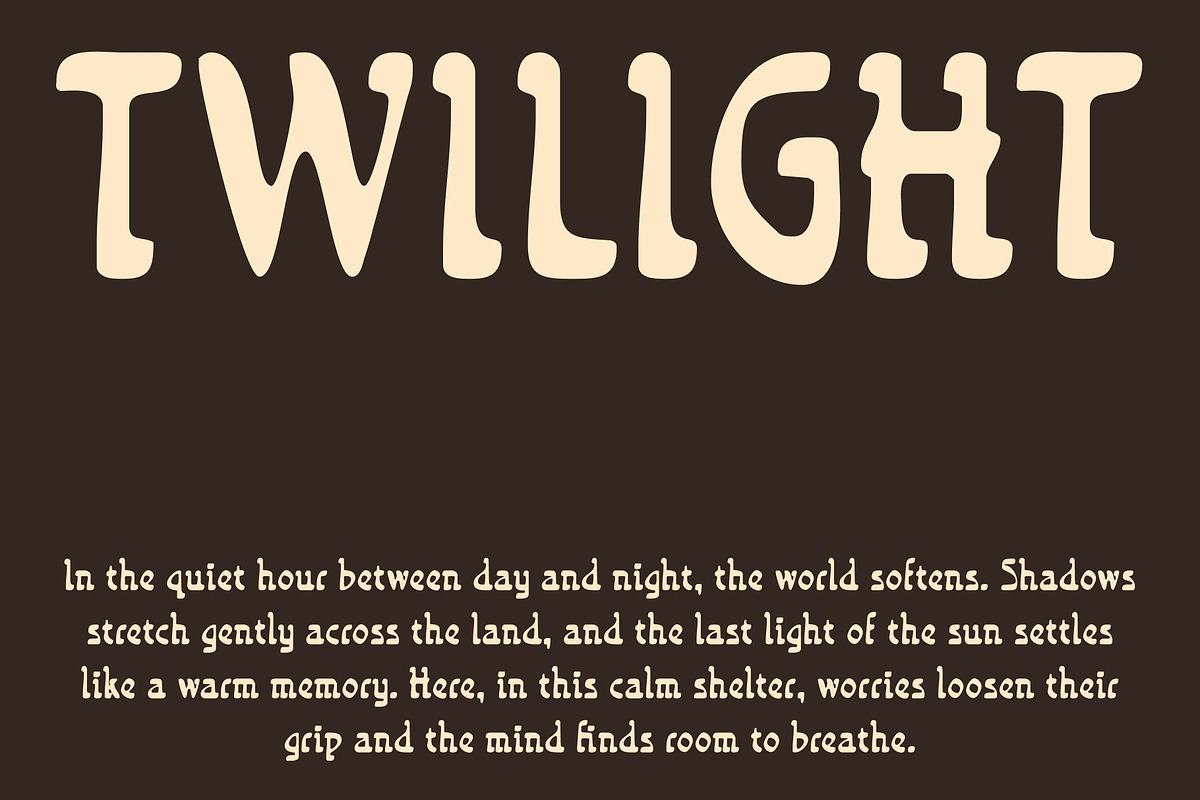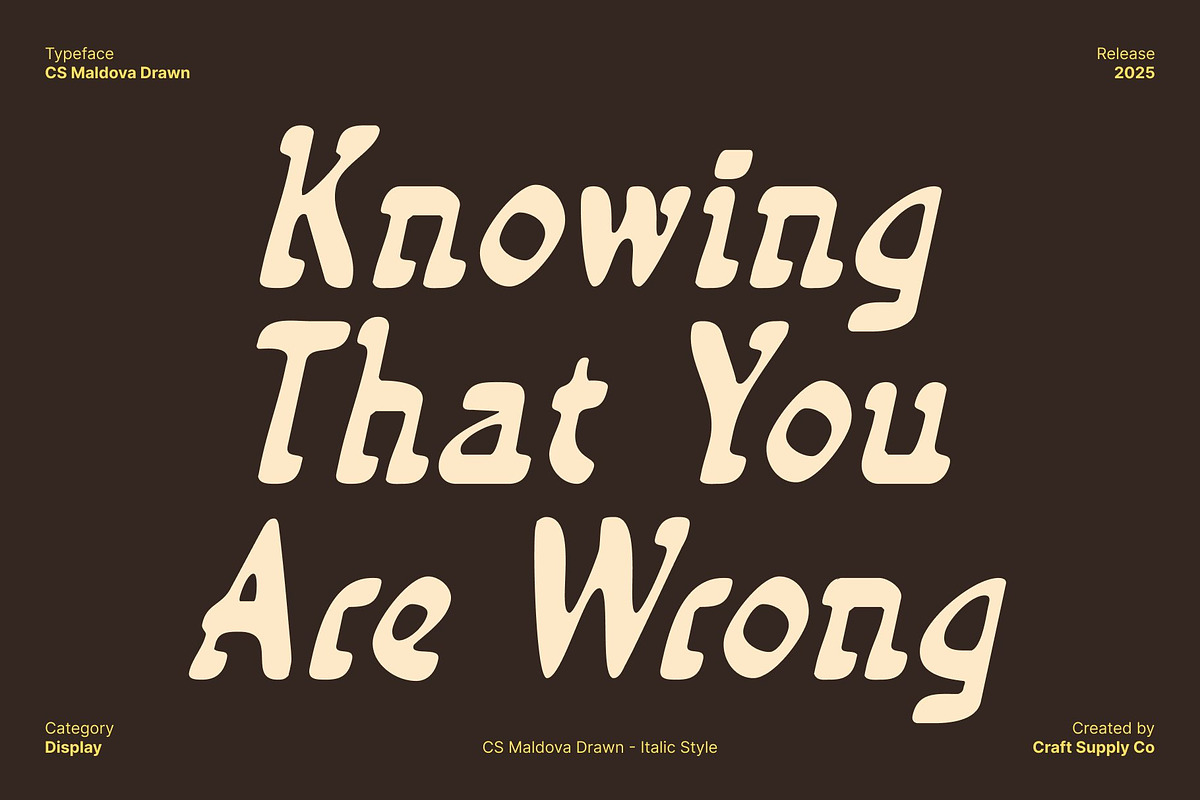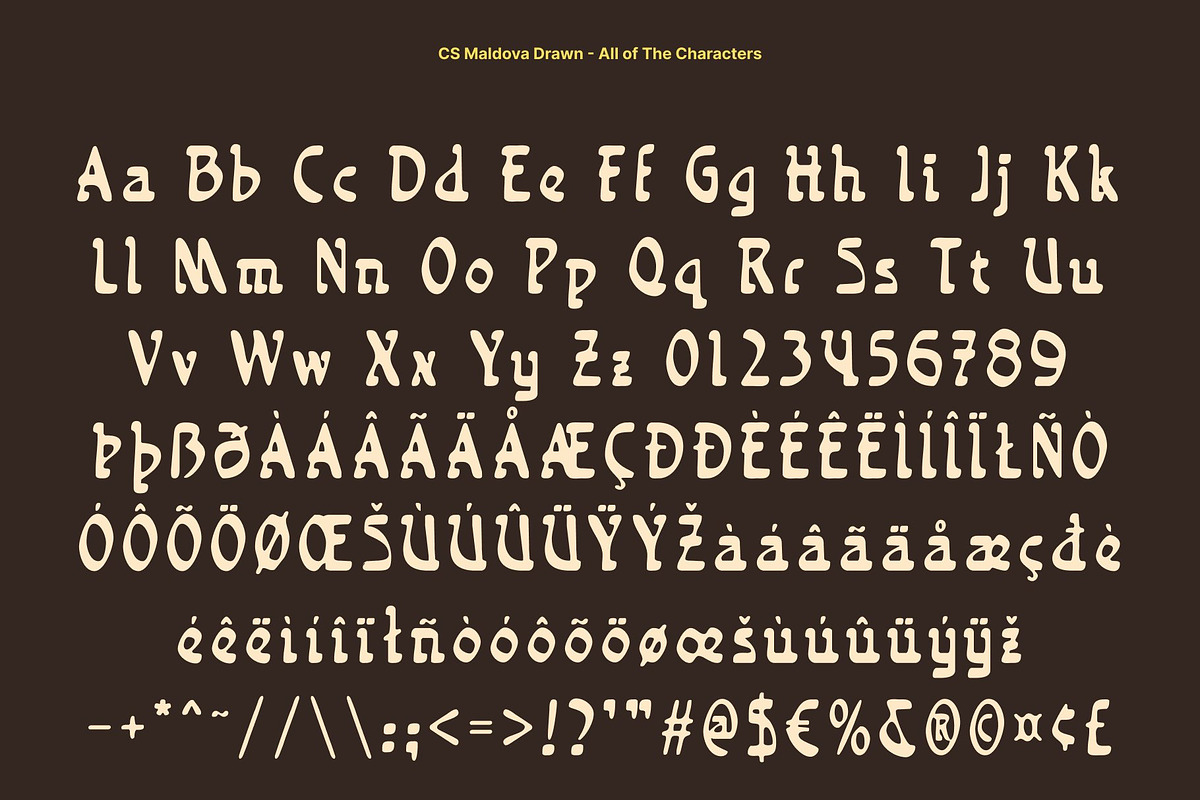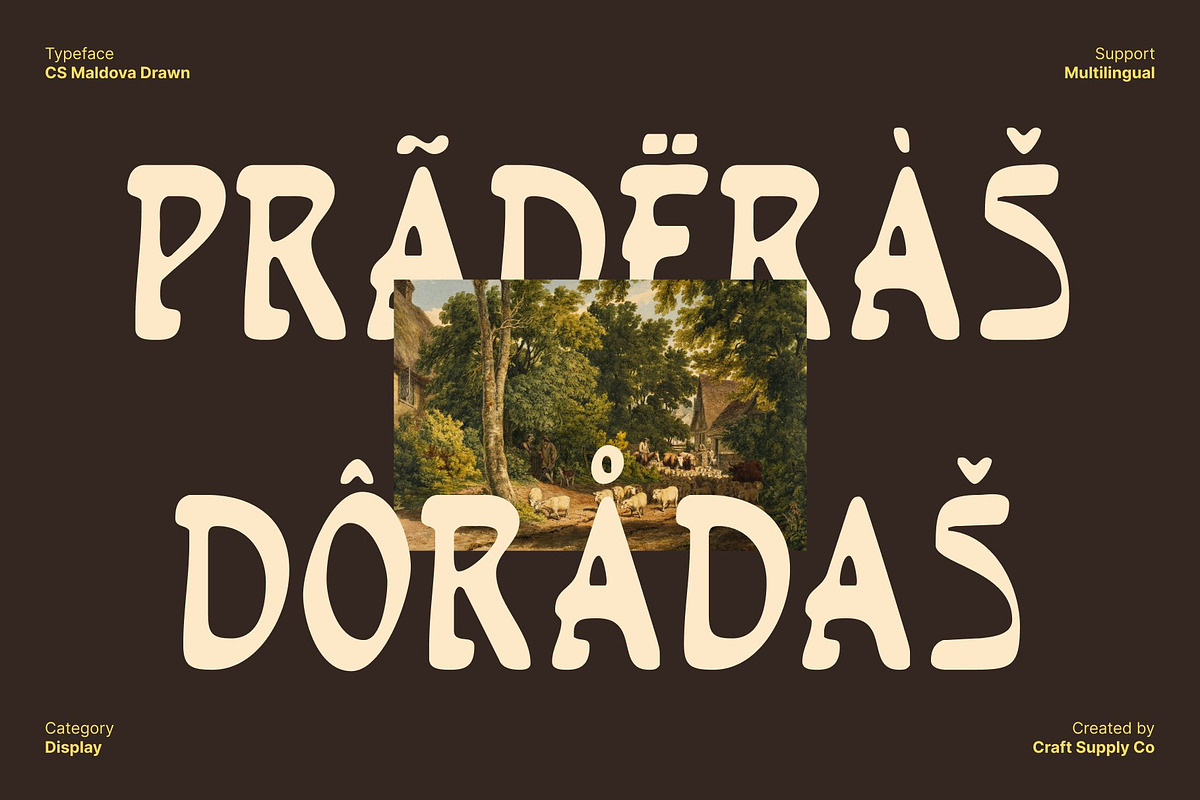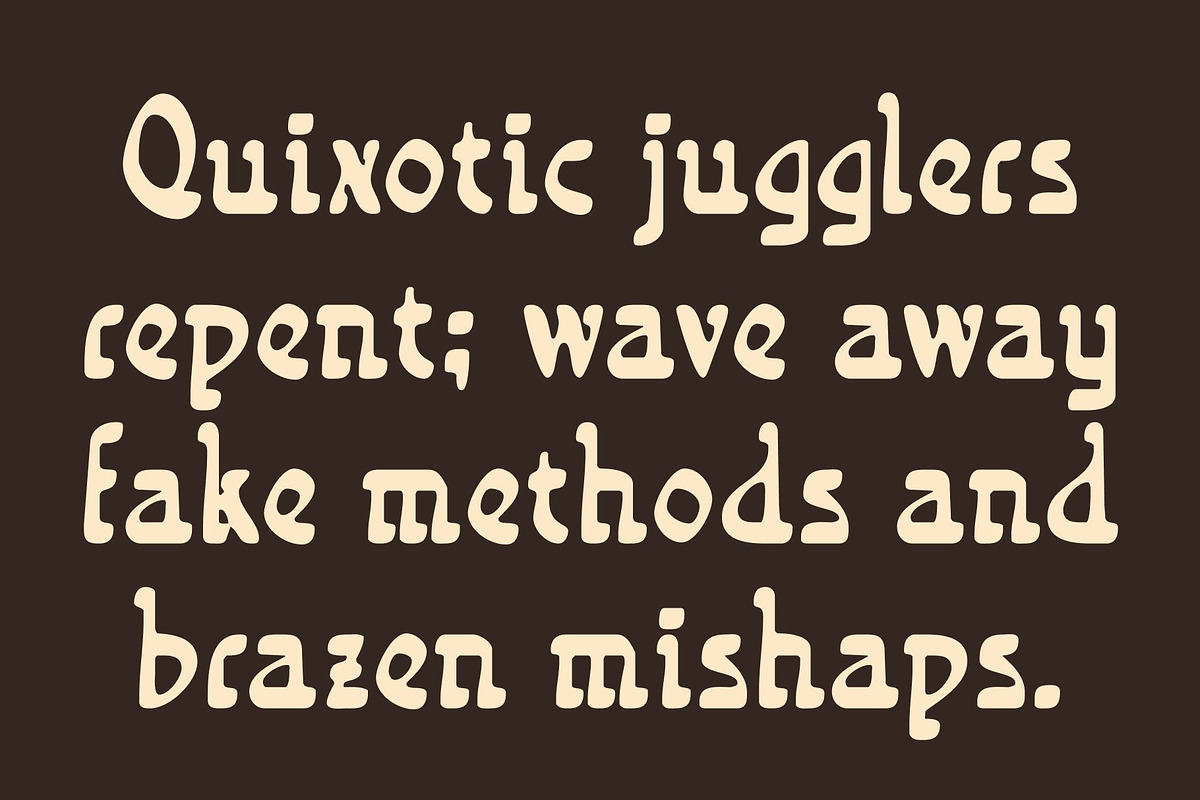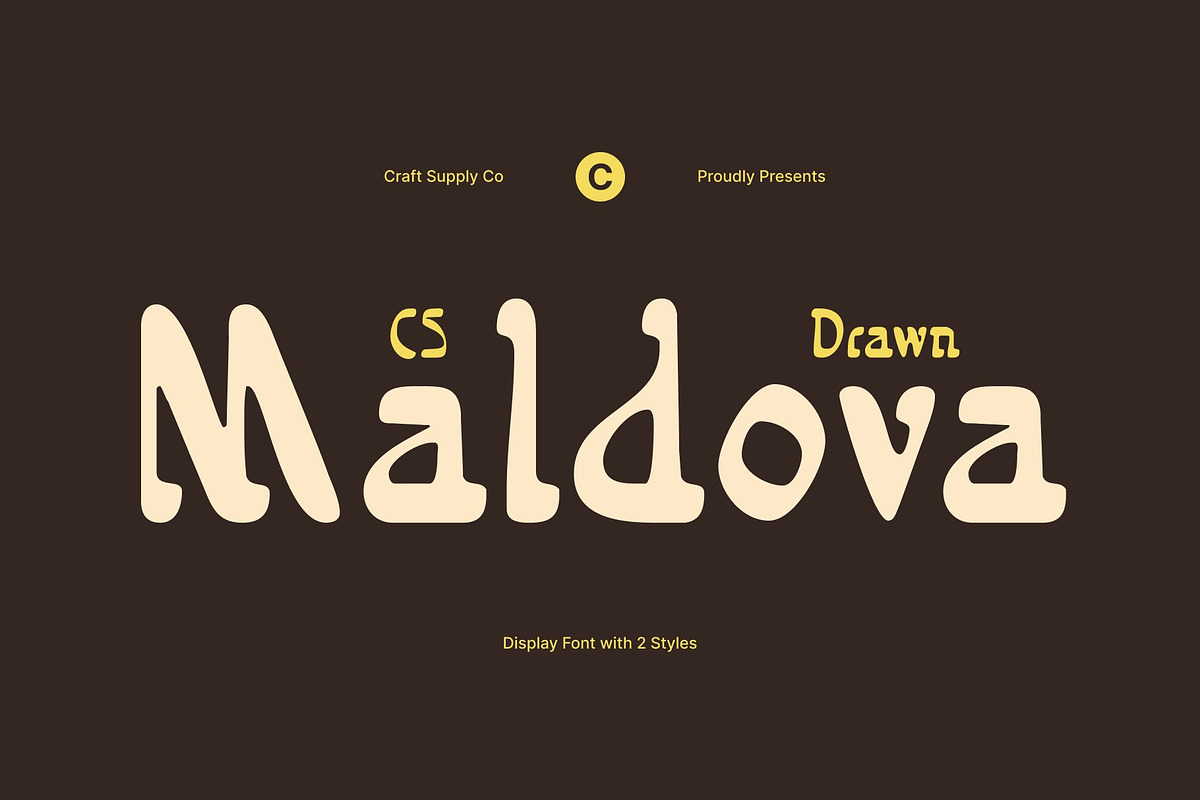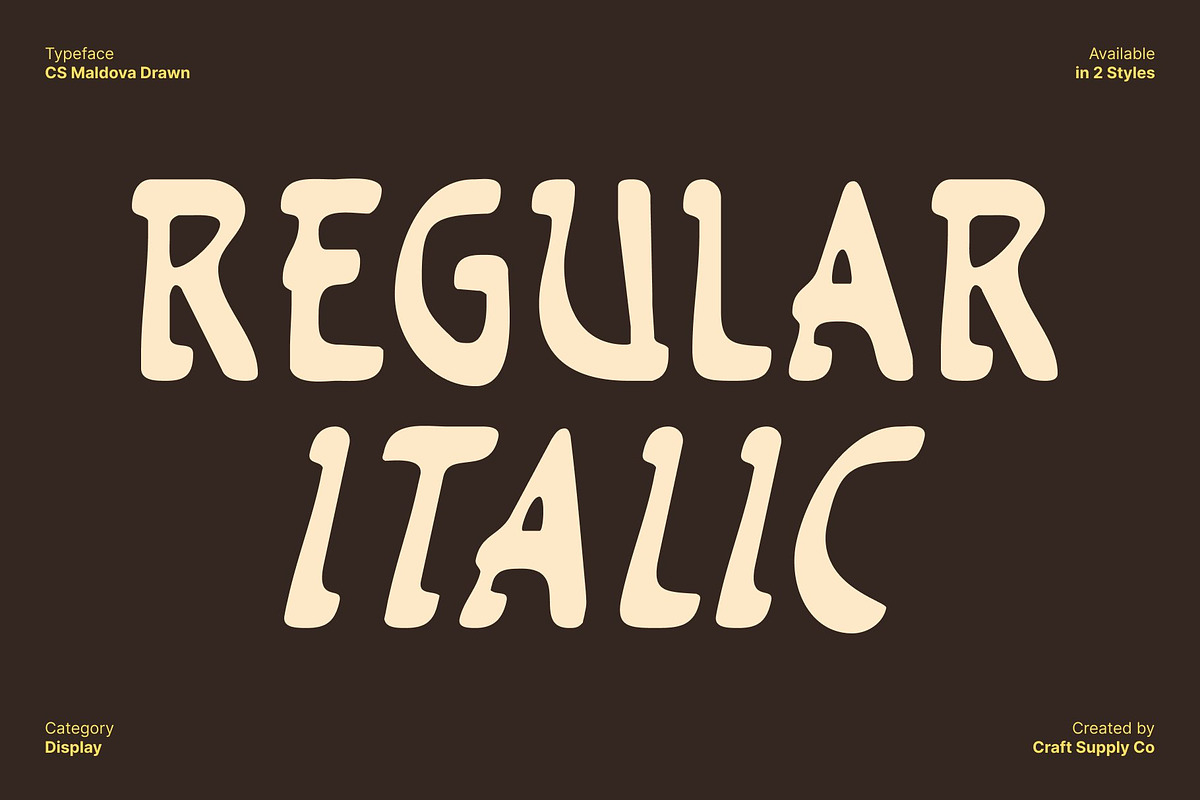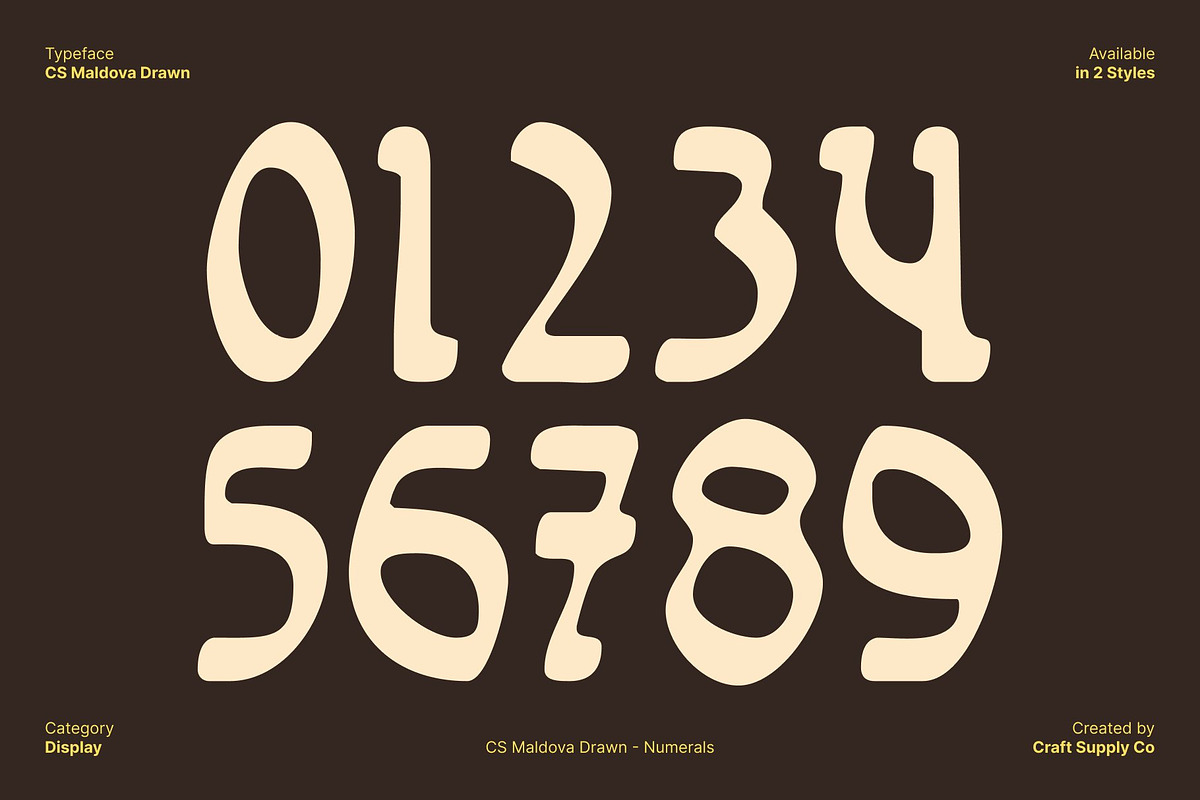
CS Maldova Drawn
CS Maldova Drawn – Groovy Serif Display Font with Natural Hand-Drawn Energy
Modern Groovy Serif Shapes Inspired by the 1970s This is a vibrant serif display font that brings the groovy spirit of the 1970s into modern design. Featuring bold slab-serif curves and lively letterforms, this font delivers a fun, funky, and playful personality. Its retro influence shines through every curve, making it perfect for designers who want to inject energy, nostalgia, and character into their typography.
Slab Serif Curves for Funky, Playful Expression The unique slab serif construction enhances the font’s dynamic, energetic rhythm. Rounded terminals and exaggerated curves give each letter a soft yet bold presence, capturing the joyful visual language of vintage poster art and retro pop culture. These expressive forms make your text instantly attention-grabbing and full of movement.
Drawn Effect for Natural Handwritten Warmth To elevate its character even further, this font incorporates a hand-drawn effect that adds warmth and authenticity. This textured finish gives the font a natural handwritten feel organic, lively, and full of charm. The drawn effect softens the retro shapes, making the font feel approachable, creative, and uniquely personal.
Perfect for Retro Branding, Posters, and Creative Designs This font is ideal for projects that need a bold retro vibe infused with handmade energy. Use it for posters, branding, packaging, social media visuals, merchandise, or editorial layouts that aim to stand out with a groovy, artistic flair.